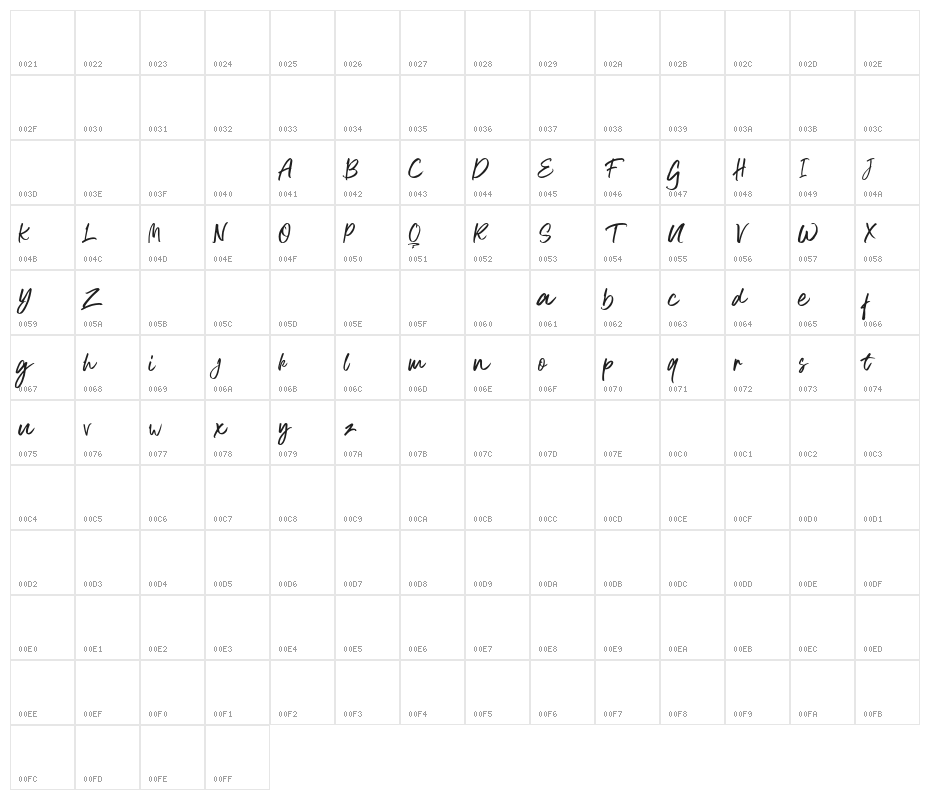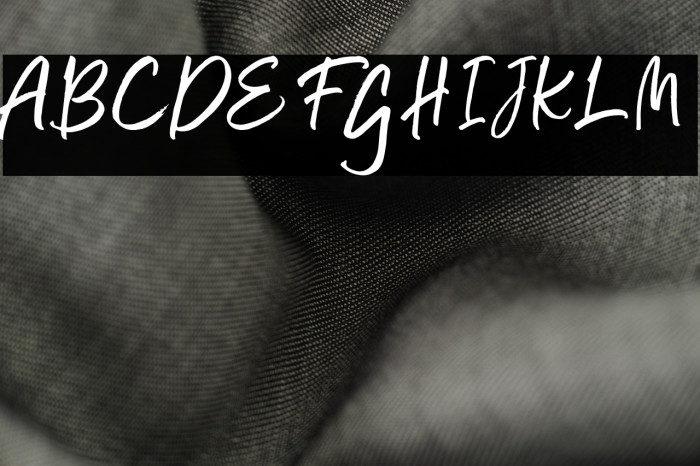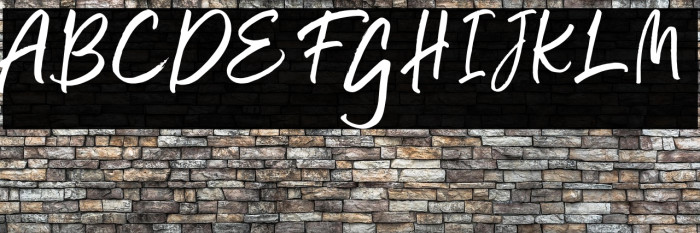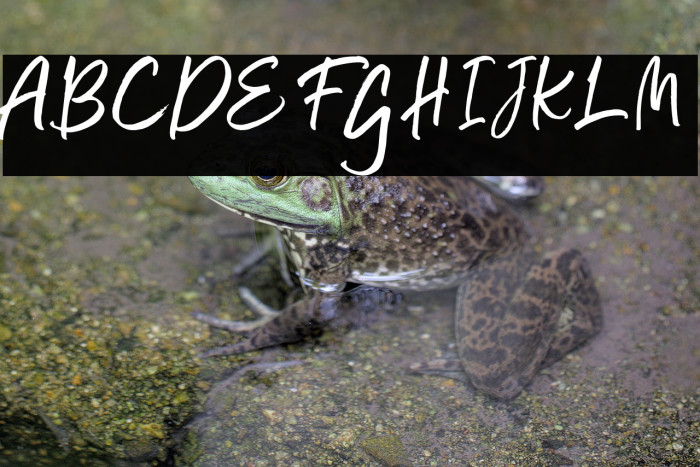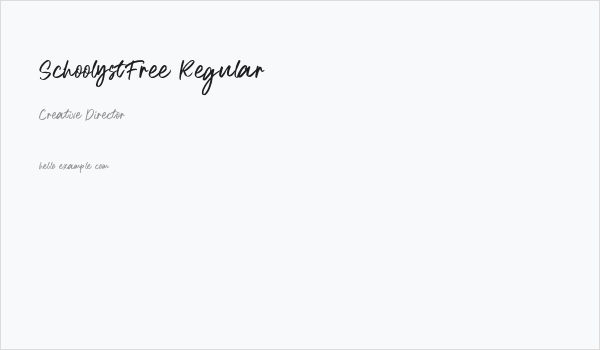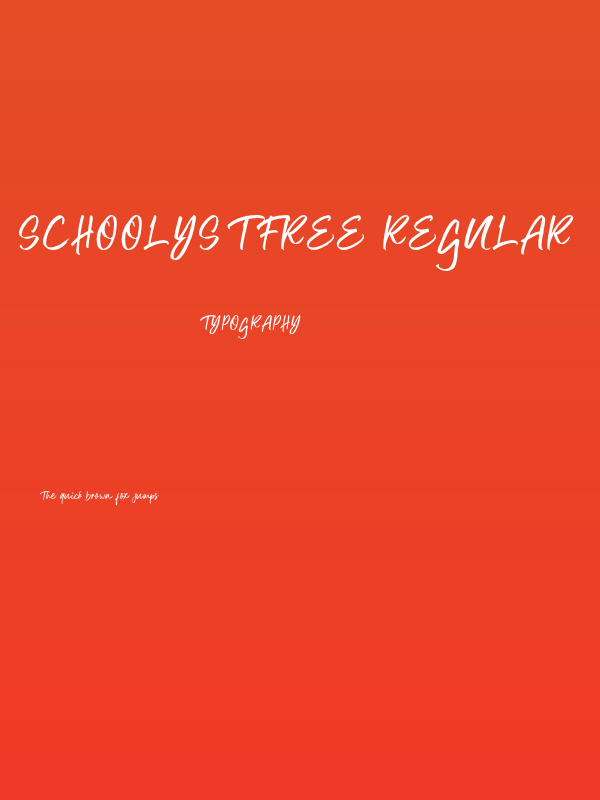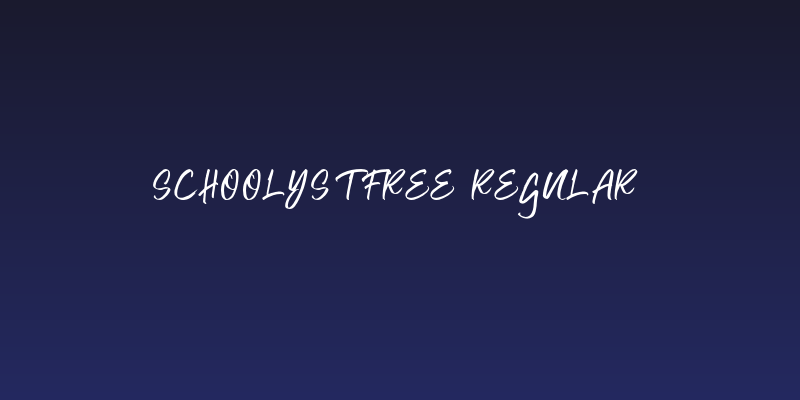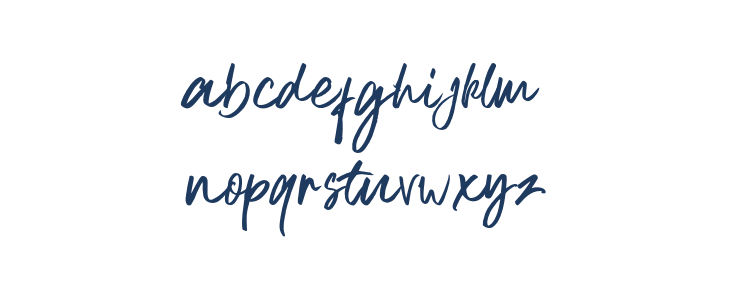
SchoolystFree-Regular Font
SchoolystFree-Regular Description
This font features a lively and dynamic handwritten style, characterized by its fluid and natural strokes. The letters exhibit a casual yet elegant appearance, with varying stroke widths that add a sense of movement and personality. The uppercase letters are bold and expressive, while the lowercase letters maintain a consistent flow, enhancing readability. The font's playful nature is complemented by its slightly irregular baseline, giving it an authentic handwritten feel. This font is versatile, suitable for projects that require a personal touch or a creative flair.
| Proposed Projects | Ideal for greeting cards, invitations, personal branding, and creative projects that benefit from a handwritten touch. |